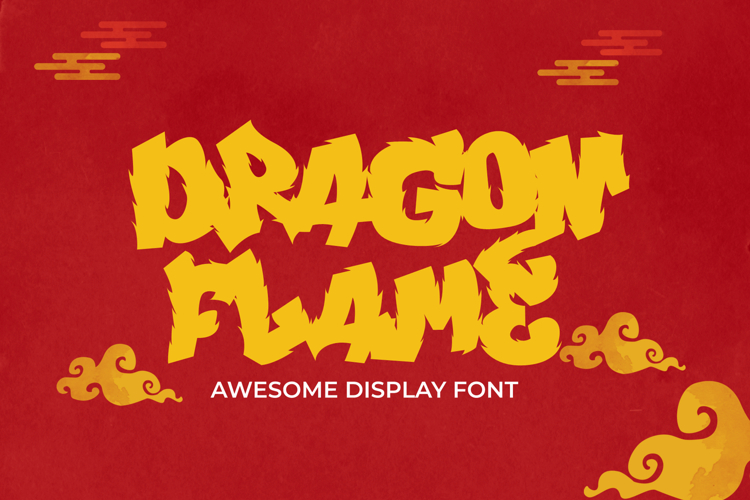
Dragon Flames - Onfire Display Font
Ignite your designs with Dragon Flames – the fiery display font that commands attention and fuels creativity like never before. With its bold letterforms and blazing character, Dragon Flames is more than just a font – it's a force of nature that sets your designs ablaze with passion and power.
🔥 Unleash the Fire: Let your creativity burn bright with Dragon Flames. This on-fire display font brings a fierce energy to your designs, commanding attention and leaving a lasting impression. Perfect for posters, banners, logos, and more, Dragon Flames ignites the imagination and fuels the flames of creativity.
🐉 Fierce and Fearless: Inspired by the legendary dragons of myth and legend, Dragon Flames embodies the untamed power and ferocity of these mythical creatures. Each letter is a testament to strength and resilience, making it the perfect choice for projects that demand a bold and fearless aesthetic.
🌟 Stand Out from the Crowd: In a sea of ordinary fonts, Dragon Flames rises above the rest with its striking design and commanding presence. Whether you're designing for print or digital media, this font ensures your message is heard loud and clear, making a bold statement that cannot be ignored.
💡 Versatile Application: Dragon Flames is not limited to any particular niche or industry. Its versatility allows it to shine in a wide range of projects, from branding and advertising to packaging and merchandise. Wherever you need to make an impact, Dragon Flames is ready to light the way.
🔥 Fuel Your Creativity: With Dragon Flames at your fingertips, the possibilities are endless. Let your imagination soar as you explore the fiery depths of design, unleashing your inner dragon and setting the world ablaze with your creativity.
Transform your designs into roaring infernos of creativity with Dragon Flames – the on-fire display font that dares to defy convention and ignite the imagination. It's time to unleash the power of the dragon and set your designs ablaze with Dragon Flames leading the way.